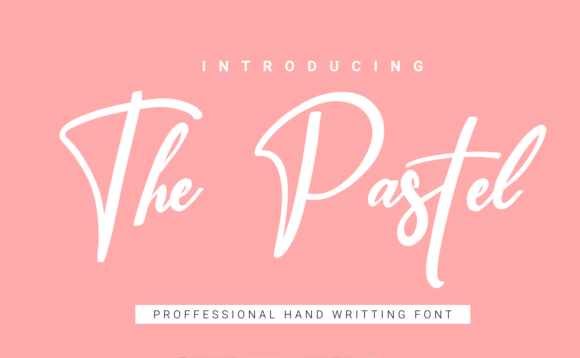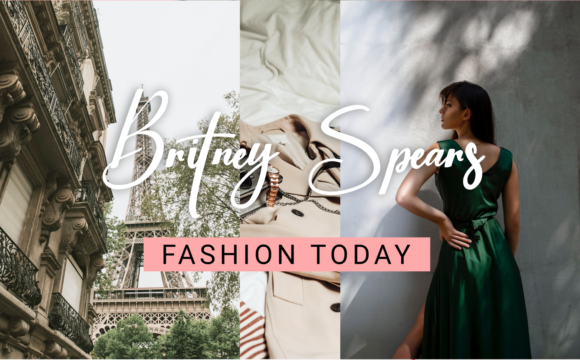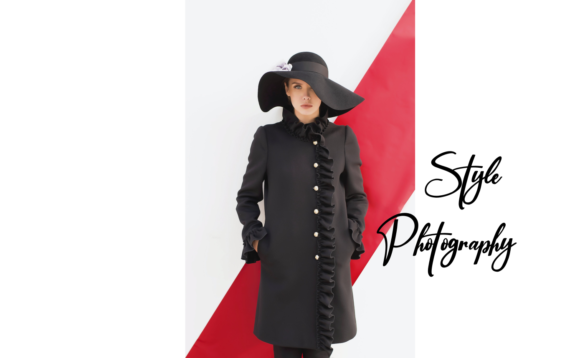
The Pastel Font
About The Pastel Font
The Pastel is a cute and delicate handwritten font that you can use for all chalkboard quotes and teaching materials! Its authentic look will add a personal and realistic feel to your designs.